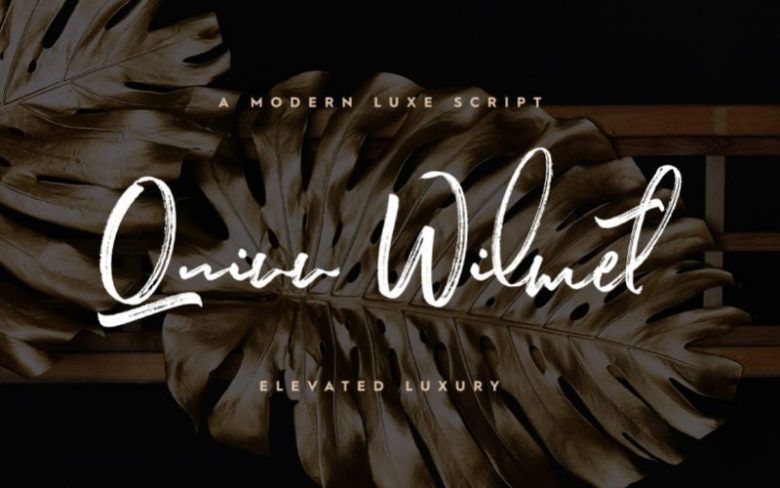
Quinn Wilmet Brush Font
Quinn Wilmet is a huge luxurious hand crafted script font that features a solid set of base characters, plus 4 sets of alternate characters & additional swashes! You’ll be able to create almost unlimited combinations of custom type using this font pack.
Great for creating wedding stationery, product packaging, covers & posters, advertisements & social media content, plus much more.